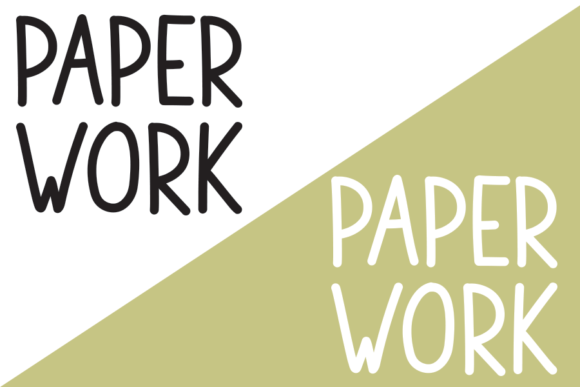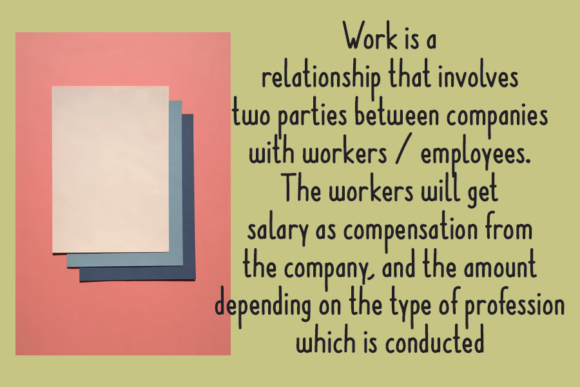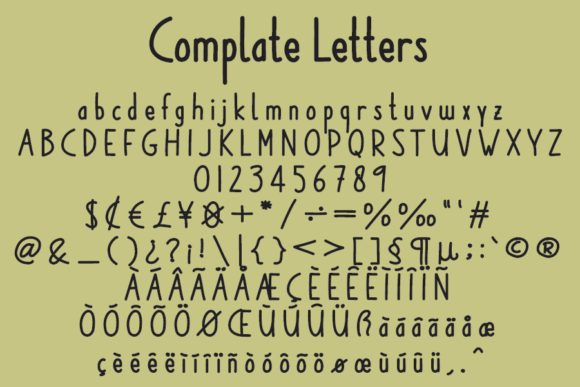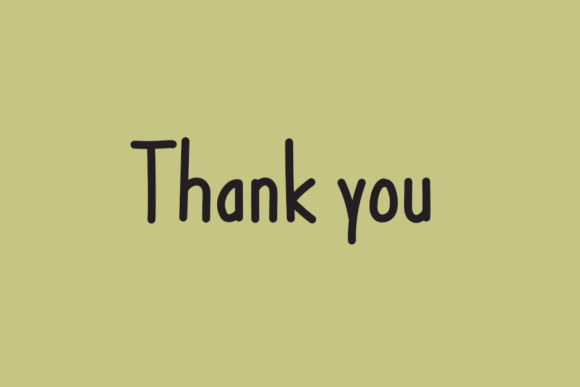
Introduction to Paper Work Font
Do you remember that moment when you’re brainstorming for a new project and the perfect font just pops into your head, transforming your entire idea? For designers, finding the right font can be the difference between a good design and an amazing one. This is where the Paper Work Font comes in – a clean, minimalist sans serif font that’s perfect for bringing your creative project to life.
With its versatility and high-quality design, the Paper Work Font is an invaluable resource for designers looking to elevate their work. Whether you’re working on a project with a transparent background or need a font that’s easy to read, this font is sure to deliver. And the best part? It’s available for free download, making it a must-have in every designer’s toolkit.
Key Features of Paper Work Font
- High-quality design resource perfect for creative projects, offering a unique and elegant aesthetic.
- Includes a range of characters, including uppercase and lowercase letters, numbers, and special characters, to support your creative project.
Honest Review: Paper Work Font
I recently stumbled upon the Paper Work Font and I must say it’s been a game-changer for my design projects. This font is a high-quality resource that’s perfect for adding a touch of elegance to any creative project.
- ✨ It’s incredibly versatile and can be used for a wide range of designs, from business documents to social media graphics.
- ✨ The font has a unique, handcrafted feel that sets it apart from more generic fonts.
- ✨ The transparent background makes it easy to combine with other design elements.
One thing to note is that the Paper Work Font may not be suitable for all design projects, particularly those that require a more modern or bold aesthetic.
- ⚠️ The font may not be as effective for designs that require a lot of contrast or bold typography.
Overall, I’m really impressed with the Paper Work Font and would highly recommend it to designers looking for a high-quality, creative resource. It’s definitely worth checking out, especially for those who want to add a touch of sophistication to their designs.
Paper Work Font
Tips for Getting the Most Out of Paper Work Font
Use the Paper Work Font on a transparent background to create a clean and minimalist design. Experiment with different font sizes and colors to add visual interest to your project.
The Paper Work Font is perfect for creative projects such as invitations, brochures, and business cards. It’s also great for designing social media graphics and presentations.